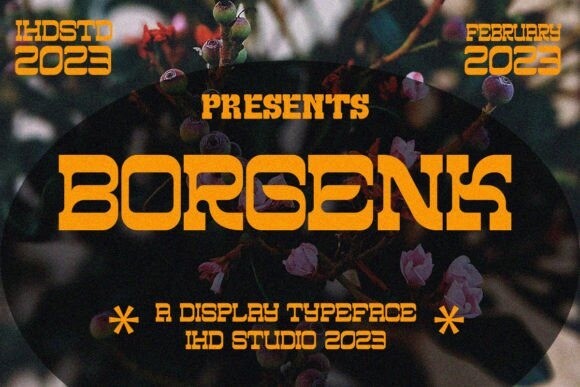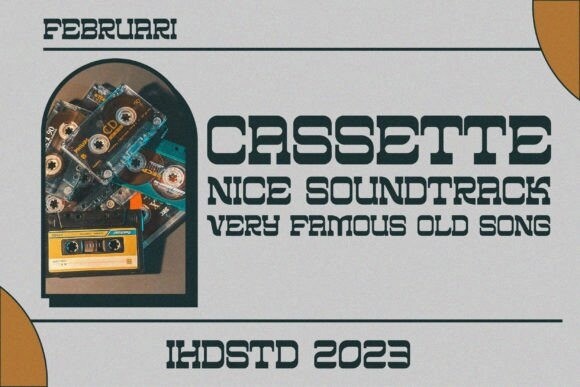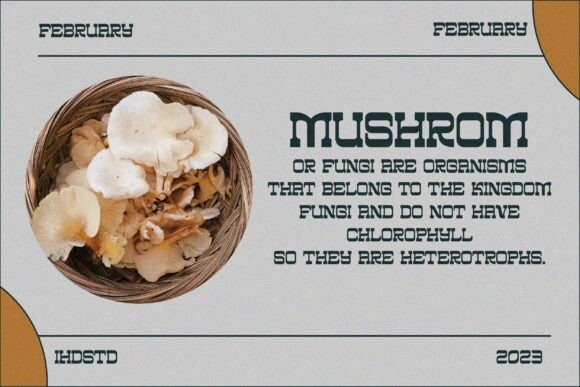
Borgenk Display Font
Borgenk is an exclusive display font that stands out from the crowd. It has a unique style with bold and eye-catching characters, and its decorative elements add a touch of flair. It’s perfect for making a statement, making it an ideal choice for any design project.